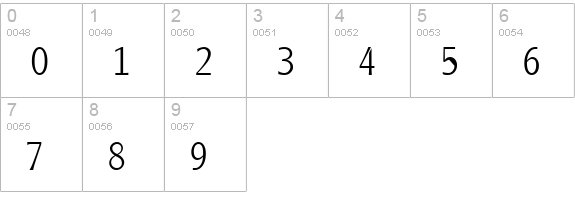
Clearly Gothic Light Font Details
Clearly Gothic Light is a refined, elegant variant in the Clearly typeface family \xE2\x80\x94 well suited to elegant body text, refined sub-headings, and luxury branding.
Clearly Gothic Light is a modern and elegant font that exudes sophistication and professionalism. Its clean lines and sharp edges make it perfect for a wide range of design projects, from logos to website headers to printed materials. The sleek and minimalist design of Clearly Gothic Light gives it a timeless appeal that is sure to enhance any project it is used in. What sets Clearly Gothic Light apart is not only its striking aesthetics, but also the fact that it is completely free to download. That's right, you can get your hands on this high-quality font without spending a dime. Simply head over to FontsMarket.com to download Clearly Gothic Light and start using it in your projects today. With its versatility and accessibility, Clearly Gothic Light is a must-have font for any designer looking to add a touch of sophistication to their work.